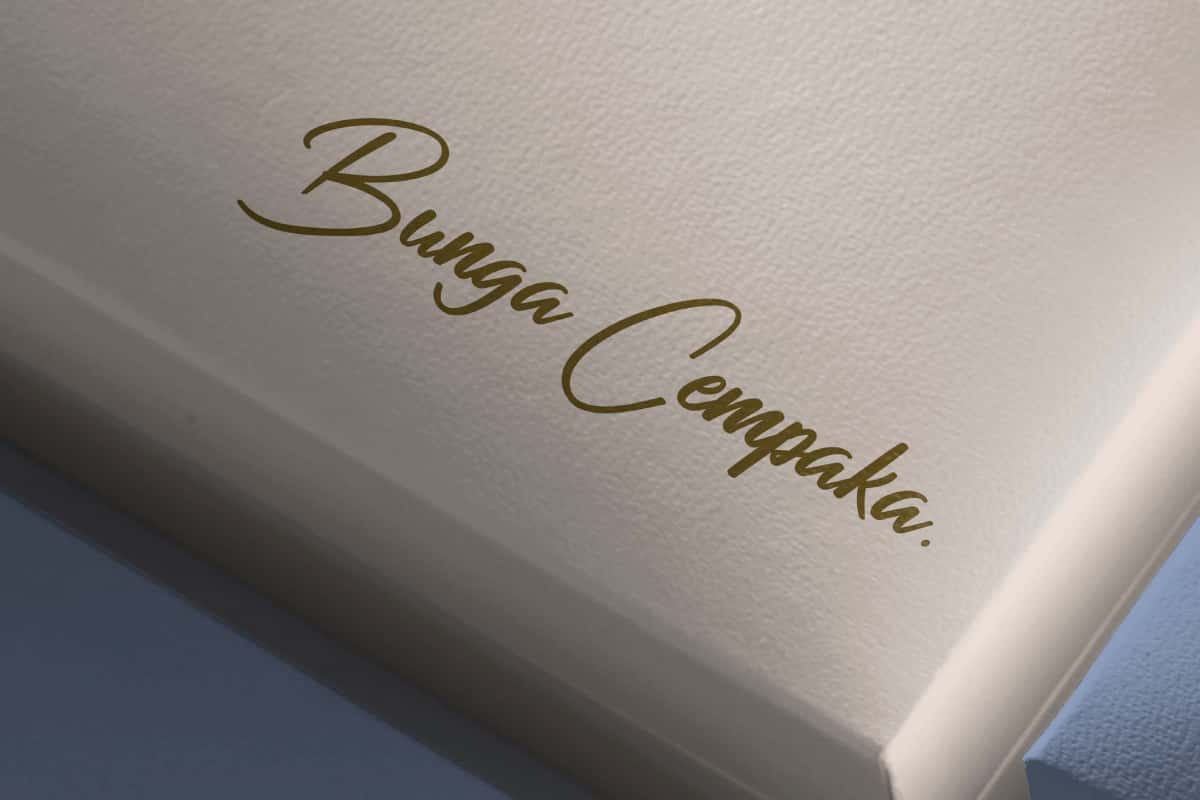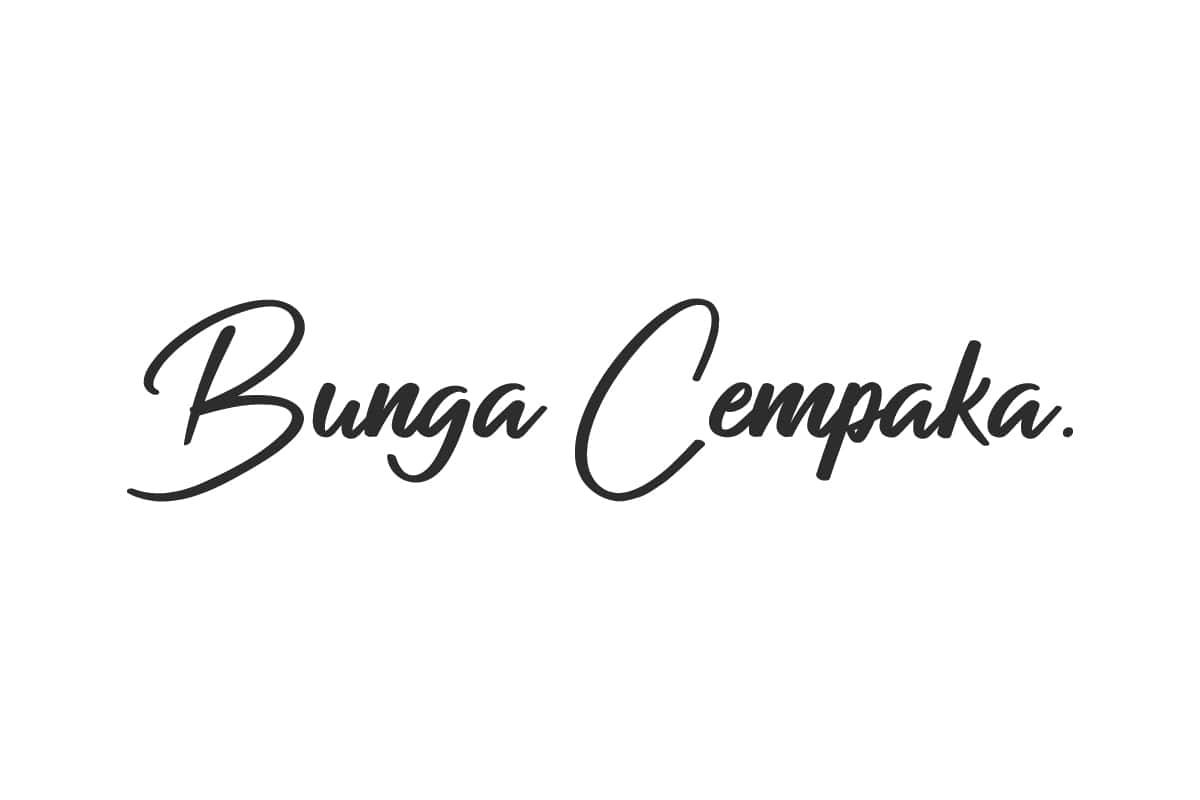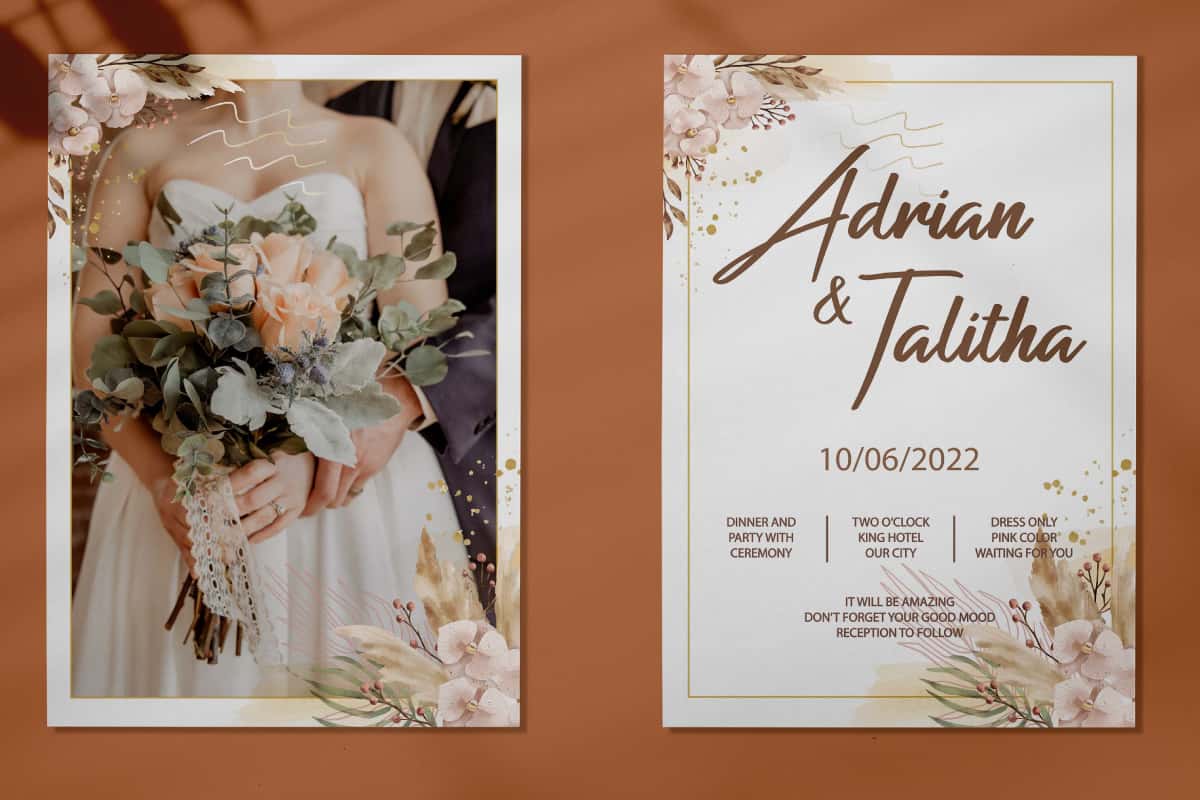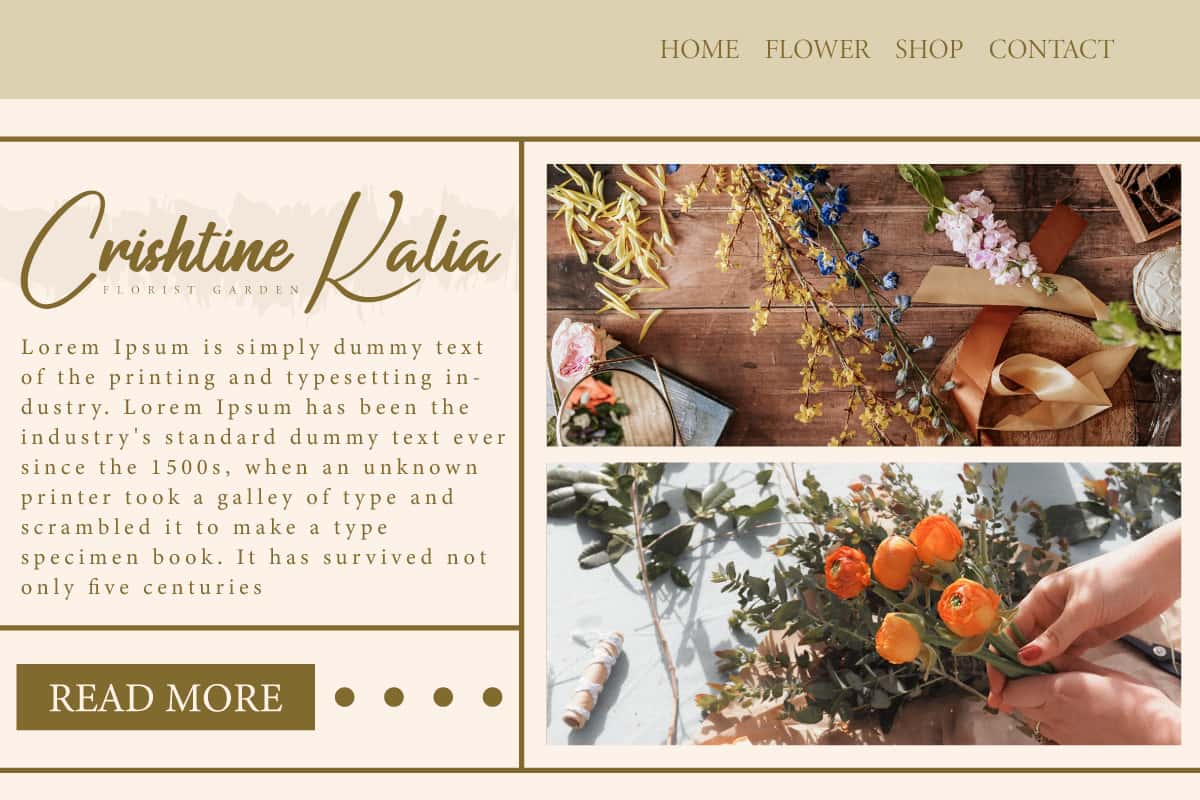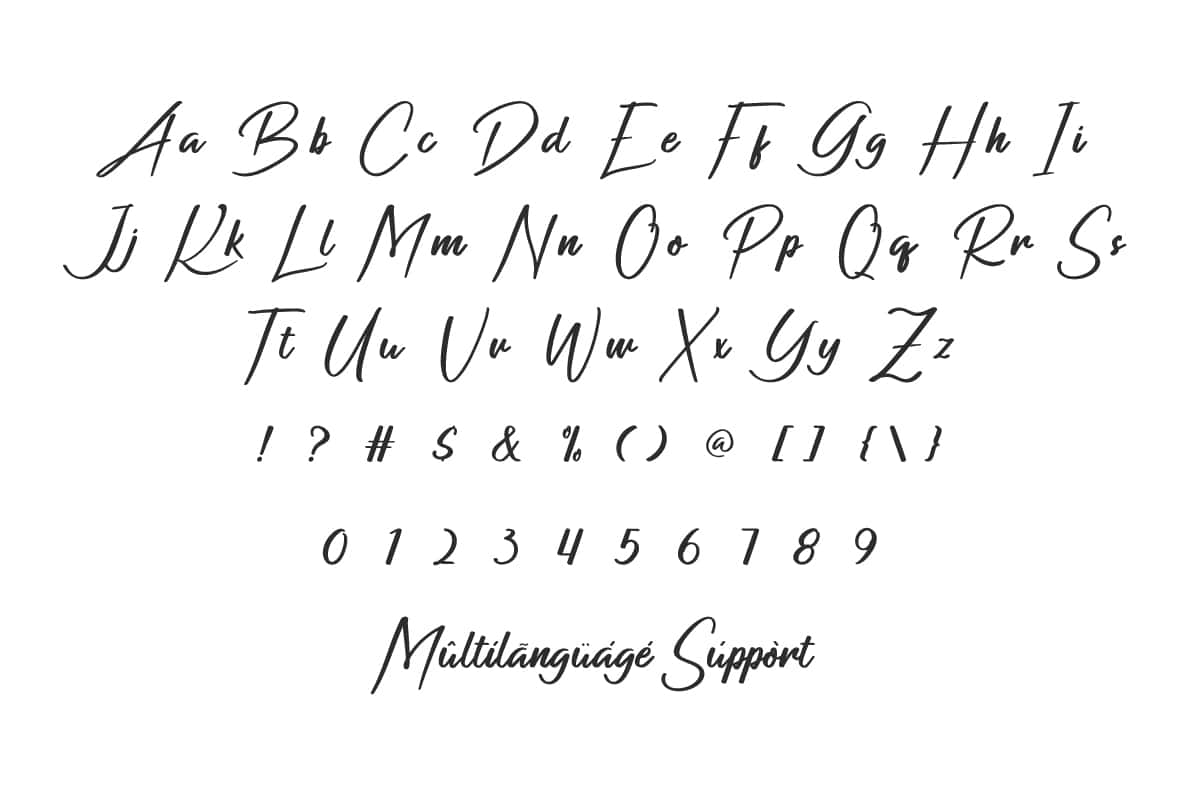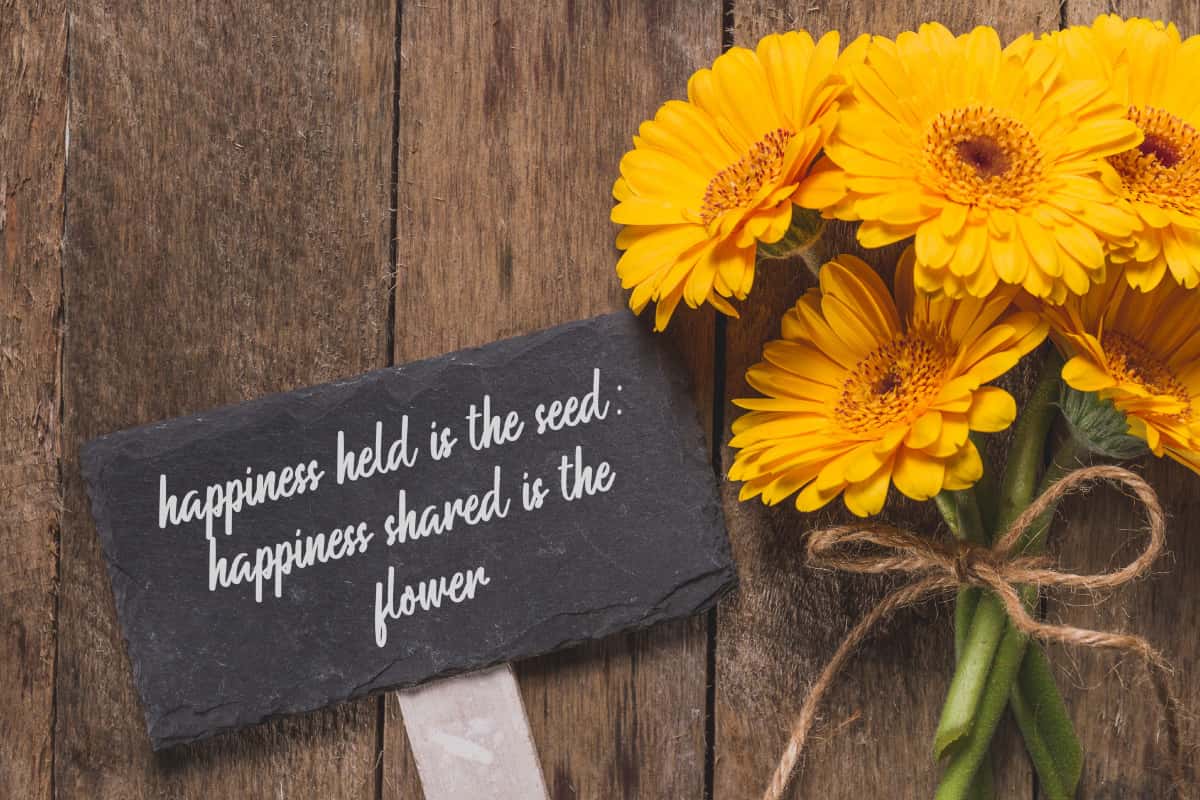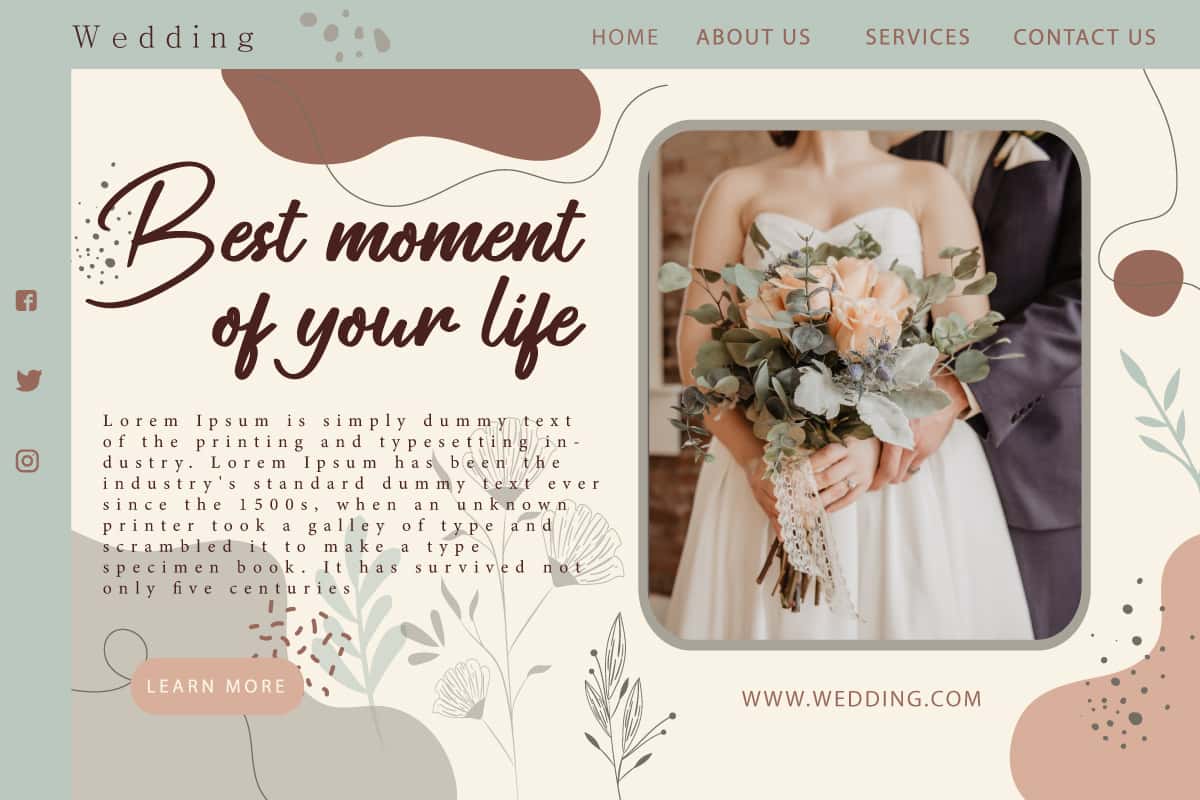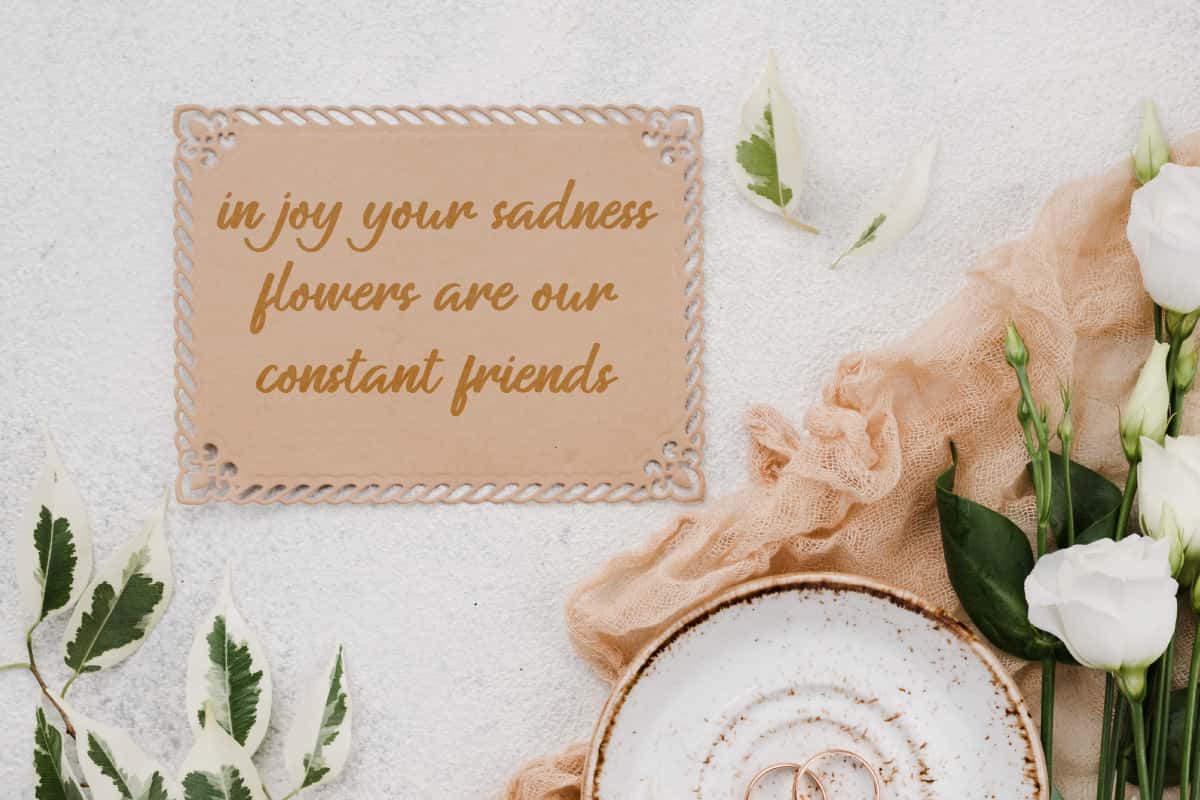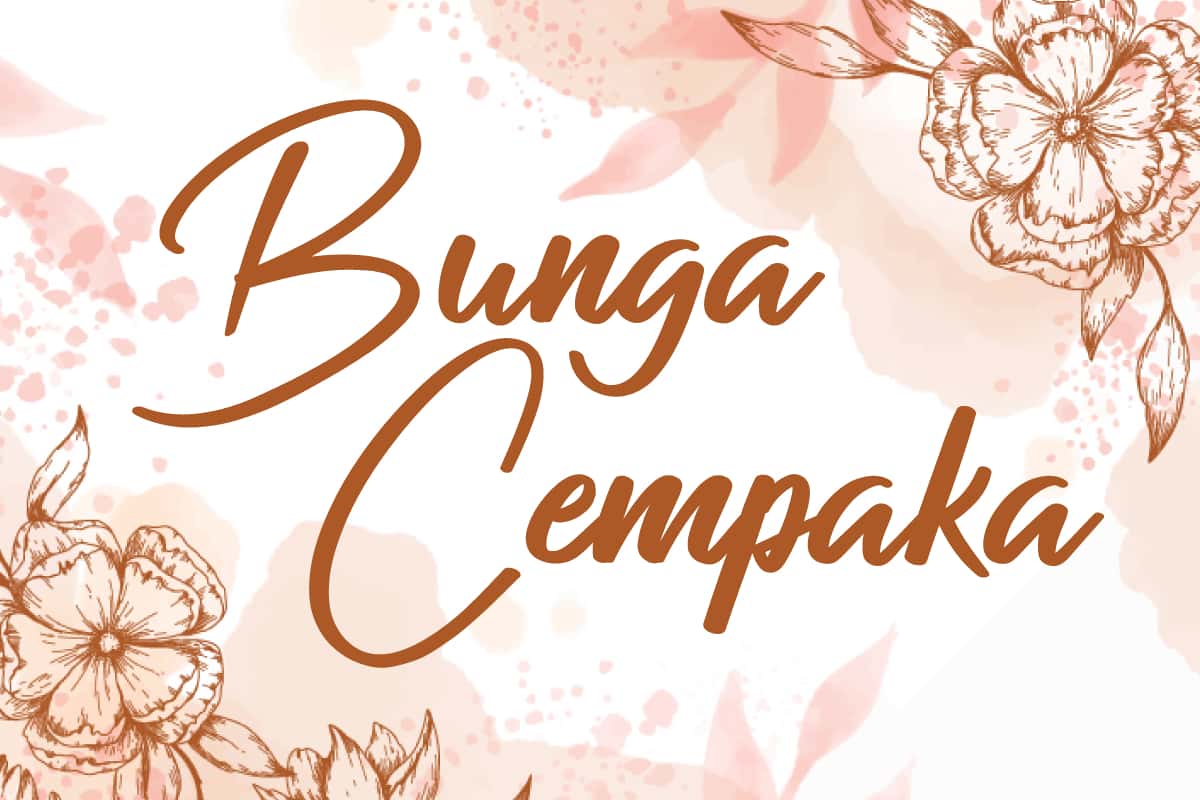
Bunga Cempaka Font
Bunga Cempaka Font is a charming handwritten font specially designed with the beauty and prettiness of the flower. Perfect for advertising, branding, etc.
Bunga Cempaka Font is an elegant font of casual handwriting with classic and natural typographic characteristics. This handmade font will add a personal touch and can mix and match your best combinations with other types. It works best for use in your design needs, such as blogs, brand logo, brochure, catalog, cover, invitation, label, quotes, sticker, title, watermark, website, and much more.
Bunga Cempaka Font comes with a full set of Uppercase and Lowercase Basic Characters, Number, Punctuation, and Symbol. This font produces letters that blend perfectly and add aesthetic value to the design or project you create. Use this for your business industry such as event organizer, florist, photography, printing, publishing, restaurant, wedding, web design, etc.